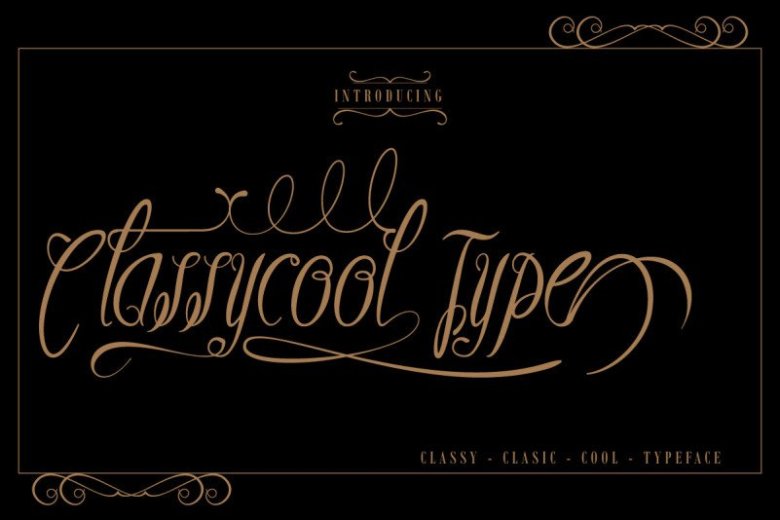
Classycool Type Free
Introducing : Classycool Type! classic, classy and cool typeface designed to meet the design needs of beautiful, elegant and high artistic value. particularly suitable for social media, branding, promotions, logo, business cards, etc.
Classycool Type equipped with Tail file as a complement to beautify your typography (type the alphabet A-S to bring it up).
Features :
• Upercase & lowercase
• Numeral & punctuation
• Ligature (see on image preview)
• Accent (see on image preview)